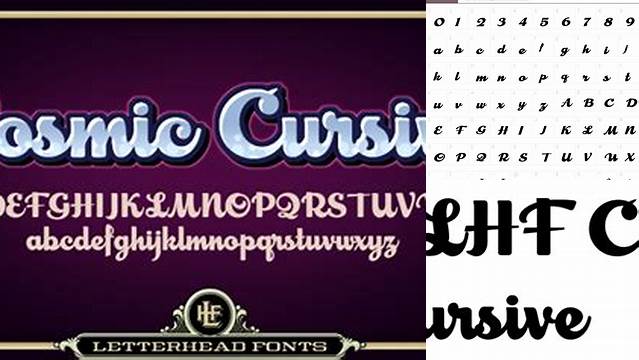
LHF Cosmic Cursive: Free Font Download Guide
Hey guys! Ever stumbled upon a font that just screams personality? That's LHF Cosmic Cursive for you. This font isn't just a bunch of squiggles and lines; it's a whole vibe. If you're looking to add some serious flair to your projects, you've come to the right place. We're diving deep into the world of LHF Cosmic Cursive, exploring everything from its unique characteristics to where you can snag it for free (or at least explore your options!). Let's get started, shall we?
1. What Makes LHF Cosmic Cursive So Special?
LHF Cosmic Cursive isn't your run-of-the-mill script font. It has this incredible blend of retro and futuristic, giving it a timeless yet modern feel. The flowing lines and distinct characters make it super versatile. Think vintage posters meet sci-fi movie titles. This font can seriously elevate your designs, whether you're working on branding, invitations, or even website headers. It's all about making a statement, and LHF Cosmic Cursive does that in spades. The unique curves and swashes add a touch of elegance, while the overall boldness ensures it grabs attention. It's like the font equivalent of a charismatic celebrity β always stealing the show.
2. The History and Inspiration Behind the Font
Every font has a story, and LHF Cosmic Cursive's is pretty cool. Understanding the inspiration behind a font can help you use it more effectively, guys. This font likely draws inspiration from the mid-century modern design movement, which was all about sleek lines and futuristic aesthetics. Think the Space Age and those groovy 1960s vibes. You might see echoes of vintage sign painting and even a touch of classic calligraphy. Knowing this history helps you appreciate why the font looks the way it does and how to best incorporate it into your projects. Itβs not just about the letters; itβs about the story they tell.
3. Key Features and Design Elements of LHF Cosmic Cursive
Let's break down what makes LHF Cosmic Cursive tick. The key features include its bold strokes, flowing connections between letters, and distinctive swashes. The font often has a high contrast between thick and thin lines, adding to its visual appeal. Pay attention to the unique letterforms β some might have exaggerated loops or unexpected curves. These elements contribute to the font's personality and make it instantly recognizable. When you're using this font, consider how these design elements play with your overall layout and typography. A little attention to detail can go a long way in making your design pop!
8. Using LHF Cosmic Cursive in Graphic Design Projects
Now for the fun part: putting LHF Cosmic Cursive to work! This font is a total rockstar for graphic design projects. Think logos, posters, branding materials, social media graphics β the possibilities are endless. Its bold, stylish look makes it ideal for headlines and titles that need to grab attention. Consider using it sparingly to create a big impact, rather than overwhelming your design. Experiment with different color combinations and layouts to see what works best. LHF Cosmic Cursive can also be a great choice for projects that need a touch of retro flair or a futuristic edge. It's all about finding the right balance and letting the font's personality shine.